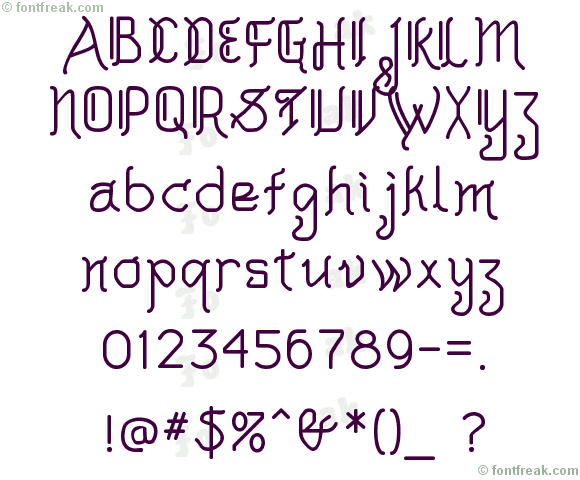
Akashi MF
Akashi MF, designed by Richard Mueller in 1993, is a captivating display font that perfectly blends elegance and uniqueness. This freeware font showcases a decorative style, characterized by its distinct strokes and artistic flourishes. The letters exhibit a moderate stroke weight with varying contrast, giving the typeface a dynamic appearance that captures attention without overwhelming the viewer. The generous spacing between characters enhances readability, making it suitable for various applications.
This font is ideal for use cases such as wedding invitations, where its decorative elements can add a touch of sophistication. It also works beautifully for movie posters, allowing designers to create striking visual statements that stand out in crowded environments. Restaurant menus benefit from the font's charm, drawing customers' eyes and lending a unique character to the dining experience. Additionally, it can enhance branding materials for small businesses, providing a memorable and distinctive look that resonates with customers.
Targeting graphic designers, small business owners, and content creators, the Akashi MF font appeals to those looking to inject creativity into their projects. Its versatility makes it a valuable addition to any designer's toolkit, allowing for a range of expressive applications across different media.
What sets the Akashi MF font apart is its ability to encapsulate personality and flair. The careful balance of decorative elements and legibility ensures that it can be used in both formal and casual settings. For anyone in search of a unique typeface that captures attention while maintaining elegance, the Akashi MF font free download offers an excellent opportunity to elevate design projects and create memorable visual experiences.